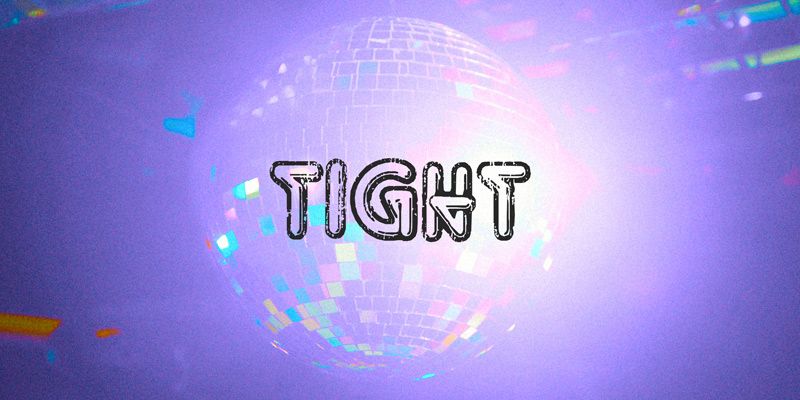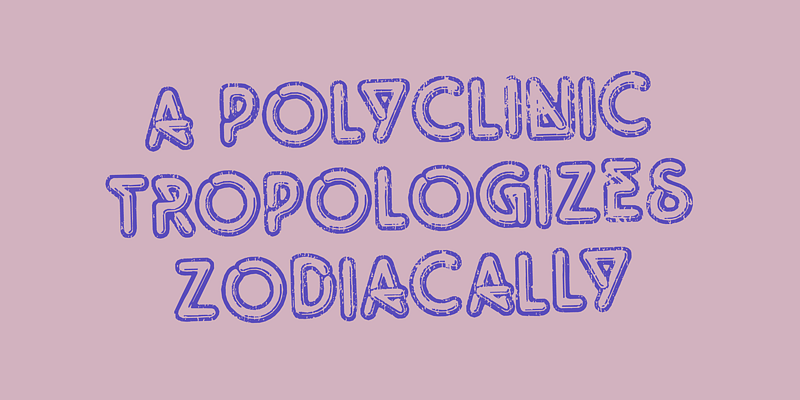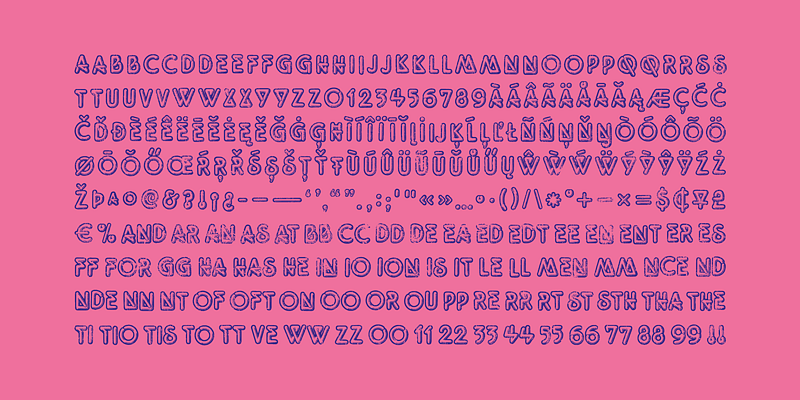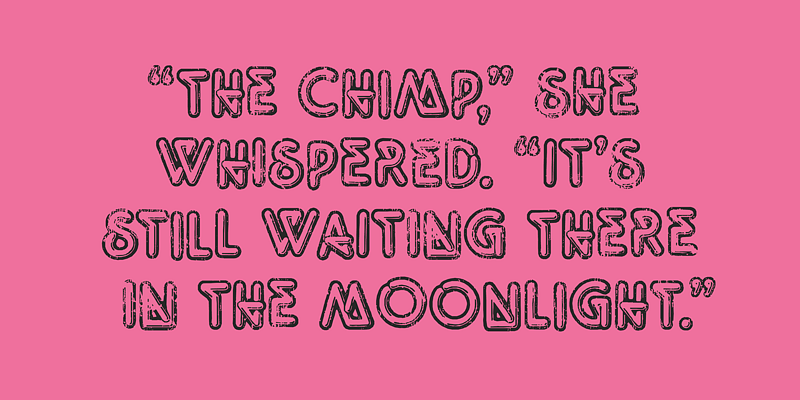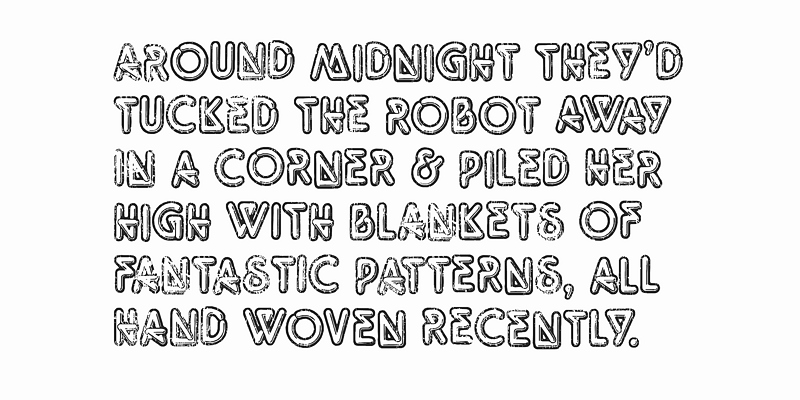
Tight is a battered interpretation of Dean Morris’s Quicksilver, the 1970s display design whose tubular forms became closely associated with disco-era graphics. Here the letters look like they have survived imperfect printing and years of washing. Their close fit and broken edges make a phrase resemble an old screen-printed shirt rather than a pristine revival of transfer lettering. Tight works for music merchandise, roller-disco posters, retro nightlife graphics, fictional period brands, and thrift-store-inspired apparel. A few large words are enough to evoke a particular time, surface, and scene.